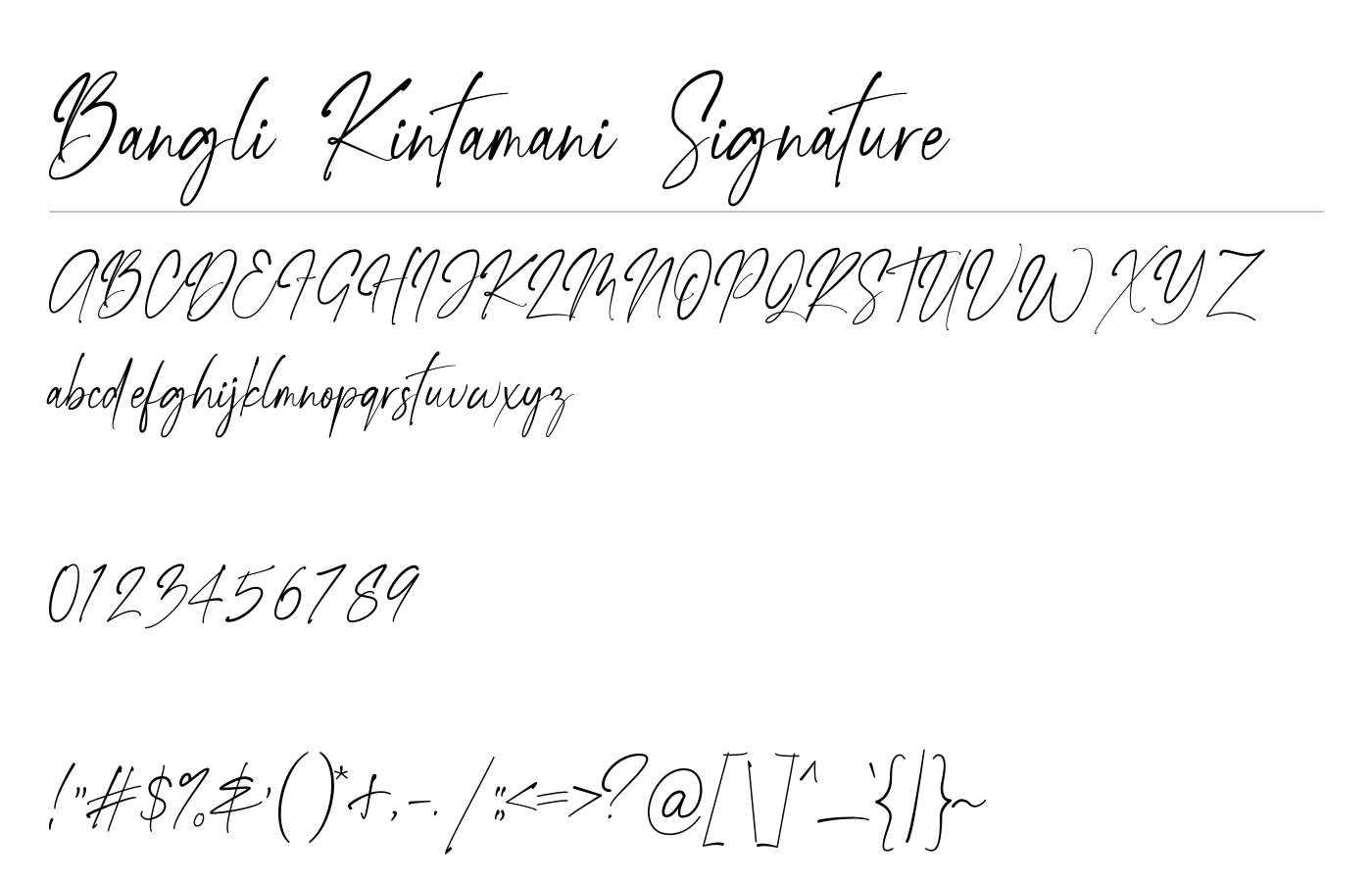
Bangli Kintamani Signature is a delicate, elegant script font that mimics natural handwriting with a slim, flowing style. Its tall, narrow letterforms and fine strokes give it a refined, personal touch, making it perfect for luxury branding, invitations, and stylish logos that seek a graceful, sophisticated feel. This font works beautifully in designs that want to convey warmth, elegance, and a unique handcrafted charm.
Bangli Kintamani Signature Font
About Bangli Kintamani Signature Font